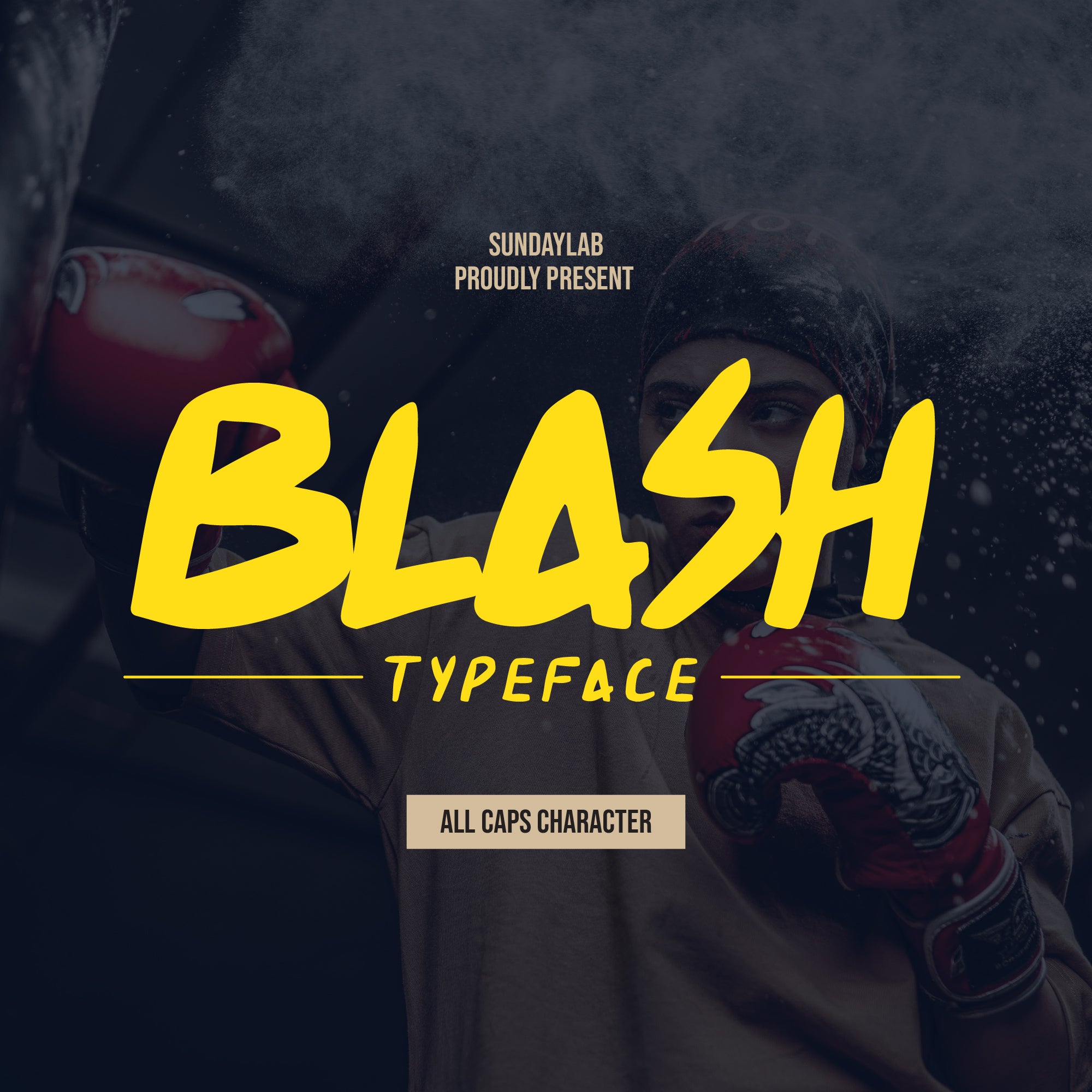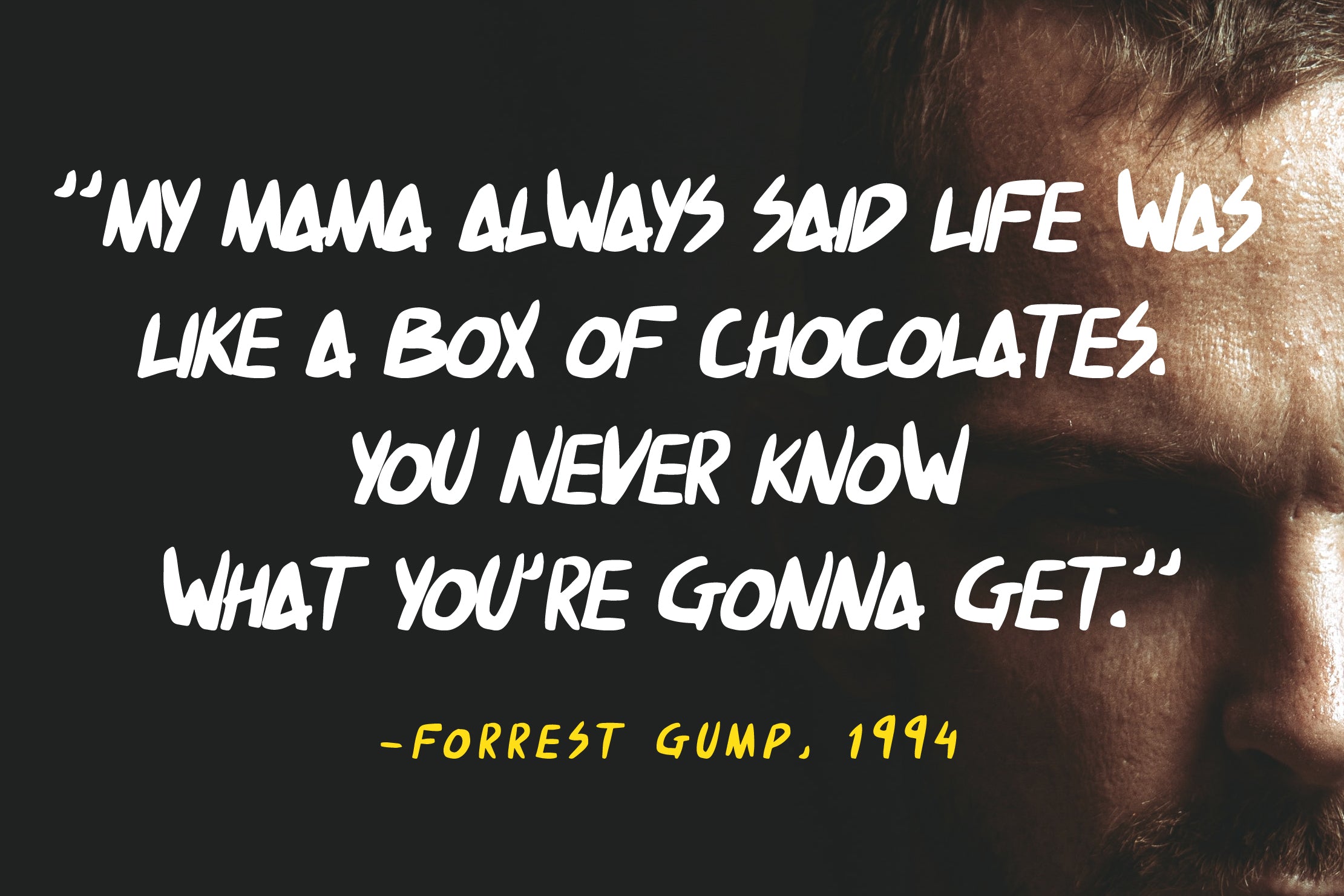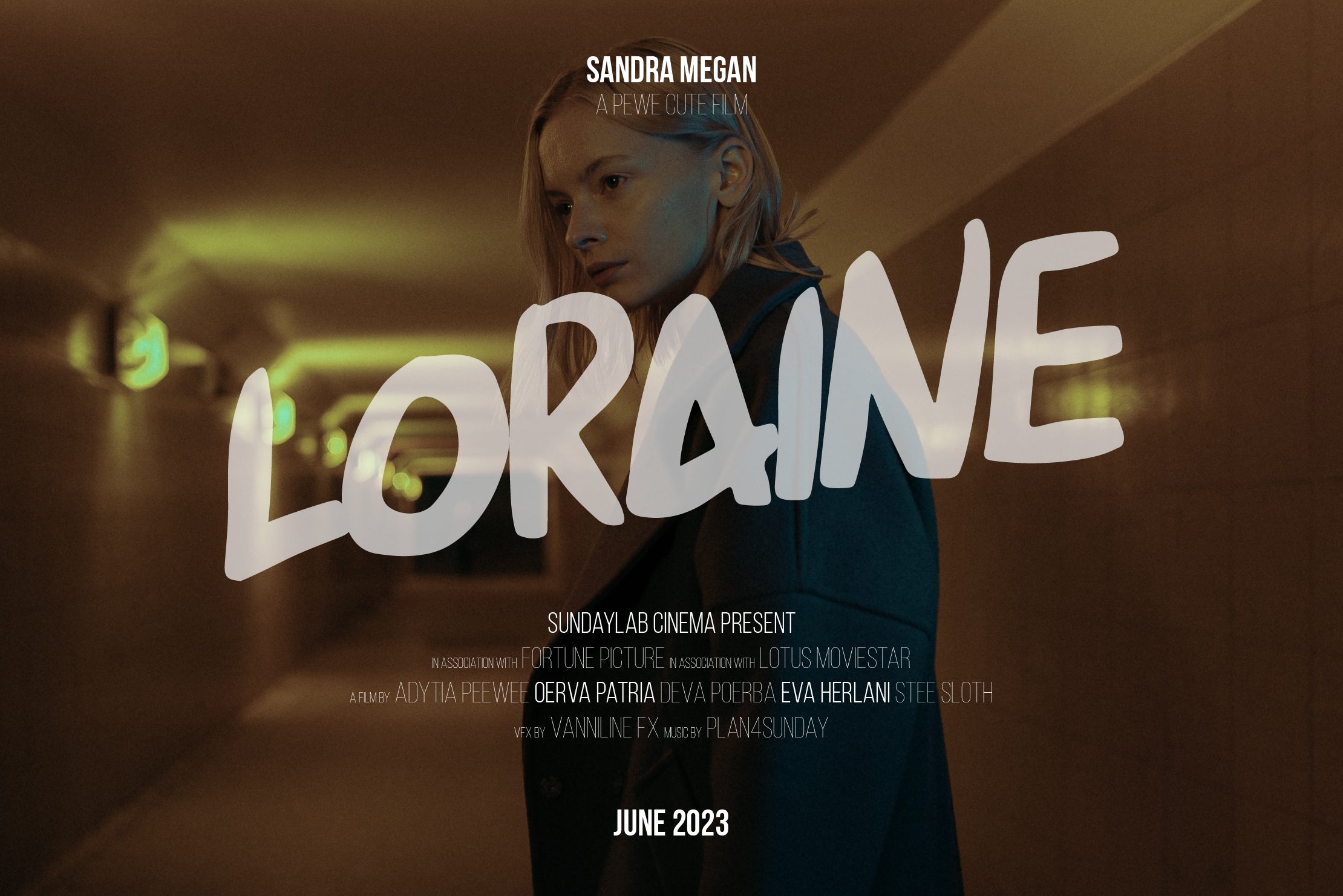
Blash Typeface
Introducing
Blash Typeface
Blash is a bold handwritten display typeface with a raw brush texture, energetic strokes, and an expressive visual character.
Designed with an organic, spontaneous feel, Blash brings a handmade personality to headlines, posters, logos, advertising graphics, album artwork, packaging, editorial layouts, and creative branding projects.
Its strong brush strokes and slightly irregular forms create an authentic hand-drawn appearance while maintaining excellent visual impact at large sizes.
Blash is especially suitable for projects that need a casual, expressive, energetic, and contemporary typographic style.
Blash Typeface is a bold handwritten display typeface featuring a raw brush texture and energetic strokes. It includes .otf and .ttf file formats, providing an authentic hand-drawn appearance with strong visual impact.